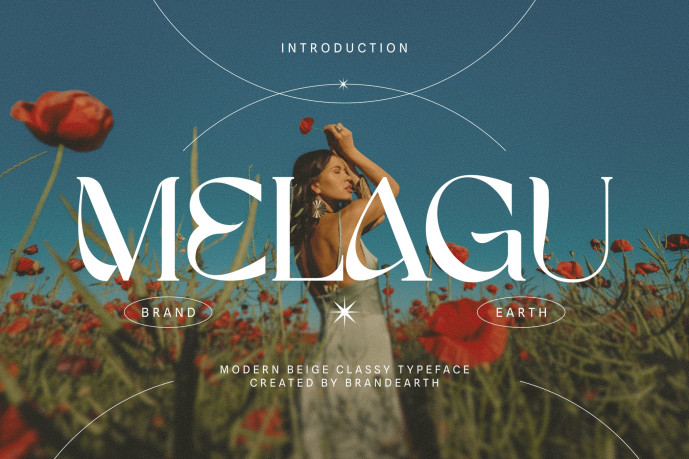
Melagu Font
Designer: BrandEarth
Melagu Font is a modern classy serif typeface featuring graceful curves, sharp contrasts, and artistic letterforms. With its sophisticated and stylish design, this font is ideal for luxury branding, editorial layouts, wedding invitations, and high-end product packaging. Melagu offers a perfect blend of timeless elegance and contemporary flair, making it versatile for logos, fashion campaigns, and refined visual identities.